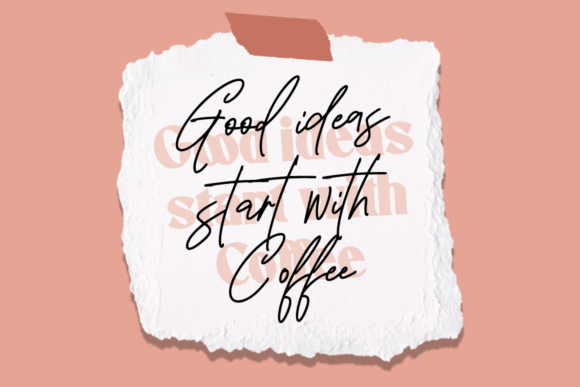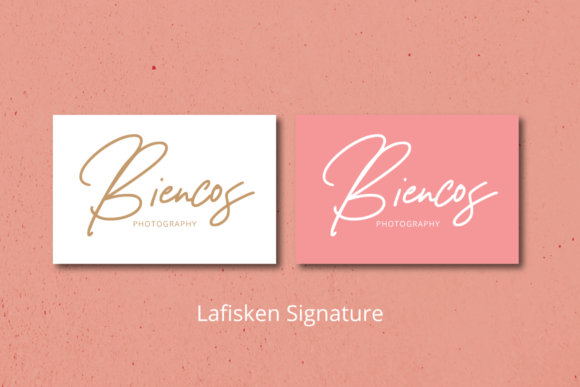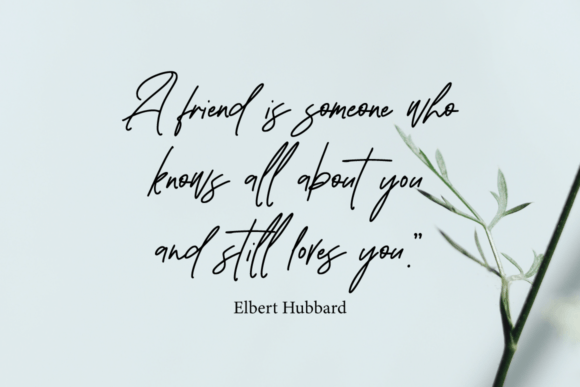
About Lafisken
Lafisken is a flowing handwritten font, described by an elegant touch, perfect for your favorite projects. Fall in love with its incredibly distinct and timeless style and use it to create spectacular designs!